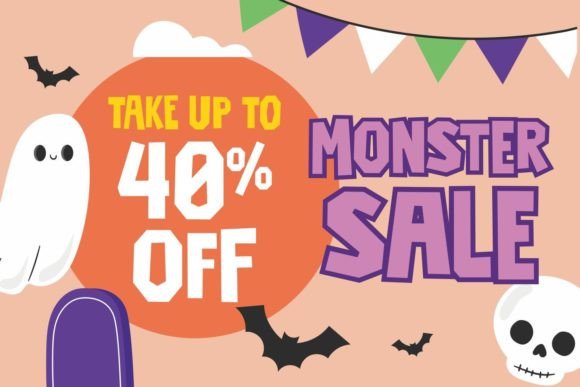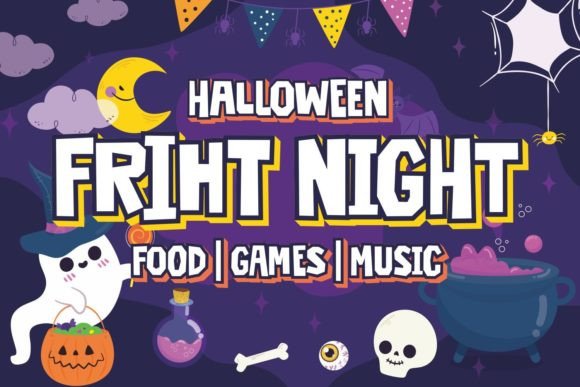
Introducing Comes One Night Font: The Ultimate Display Font for Joyful Designs
Are you looking for a font that can add a touch of joy and playfulness to your designs? Look no further than Comes One Night Font! This fun and friendly display font is perfect for a wide range of creative projects, from cartoon-related designs and children’s games to quotes, titles, brand names, book covers, posters, and more.
What Makes Comes One Night Font So Special?
Comes One Night Font is a unique and eye-catching display font that is sure to grab attention. Its fun and friendly design makes it perfect for projects that require a touch of whimsy and playfulness. The font’s bold and chunky letters are easy to read, making it a great choice for titles, headings, and other applications where you want to make a statement.
Perfect for Cartoon-Related Designs and Children’s Games
If you’re working on a project related to cartoons or children’s games, Comes One Night Font is an excellent choice. The font’s playful design is reminiscent of classic cartoons and children’s books, making it a great fit for projects that require a fun and youthful vibe. Whether you’re creating a character logo, a game title, or a promotional poster, Comes One Night Font is sure to delight your audience.
Great for Quotes, Titles, and Brand Names
Comes One Night Font is also a great choice for quotes, titles, and brand names. The font’s bold and chunky design makes it easy to read, even at small sizes. This makes it perfect for use in social media graphics, flyers, brochures, and other marketing materials. Plus, the font’s friendly design helps to create a positive and approachable tone that is sure to resonate with your audience.
Use Comes One Night Font for Book Covers and Posters
If you’re an author or publisher looking for a font to use on your book cover, Comes One Night Font is a great choice. The font’s bold and eye-catching design is sure to grab attention on bookshelves and online. Similarly, if you’re creating posters for an event or promotion, Comes One Night Font is a great choice. The font’s playful design is sure to add a touch of fun and excitement to your posters.
Key Features of Comes One Night Font
- Fun and friendly design: Comes One Night Font has a playful and approachable design that is sure to add a touch of joy to your projects.
- Bold and chunky letters: The font’s bold and chunky letters are easy to read, making it perfect for titles, headings, and other applications where you want to make a statement.
- Perfect for cartoons and children’s games: Comes One Night Font is a great fit for projects related to cartoons and children’s games.
- Great for quotes, titles, and brand names: The font’s bold and chunky design makes it easy to read, even at small sizes.
- Use for book covers and posters: Comes One Night Font is a great choice for book covers and posters, adding a touch of fun and excitement to your designs.
Tips for Using Comes One Night Font
Here are a few tips for using Comes One Night Font in your designs:
- Use it for titles and headings: Comes One Night Font is perfect for titles and headings, where you want to make a statement and grab attention.
- Pair it with a simple font: Comes One Night Font is a bold and eye-catching font, so it’s best to pair it with a simple font for body text.
- Experiment with colors: Comes One Night Font looks great in bright and bold colors, so don’t be afraid to experiment and find the perfect color for your design.
Comes One Night Font is a fun and friendly display font that is perfect for a wide range of creative projects. Its bold and chunky design makes it easy to read, and its playful vibe is sure to add a touch of joy to your designs. Whether you’re working on a cartoon-related project, a children’s game, or a marketing campaign, Comes One Night Font is a great choice. So why not give it a try and see how it can elevate your designs?